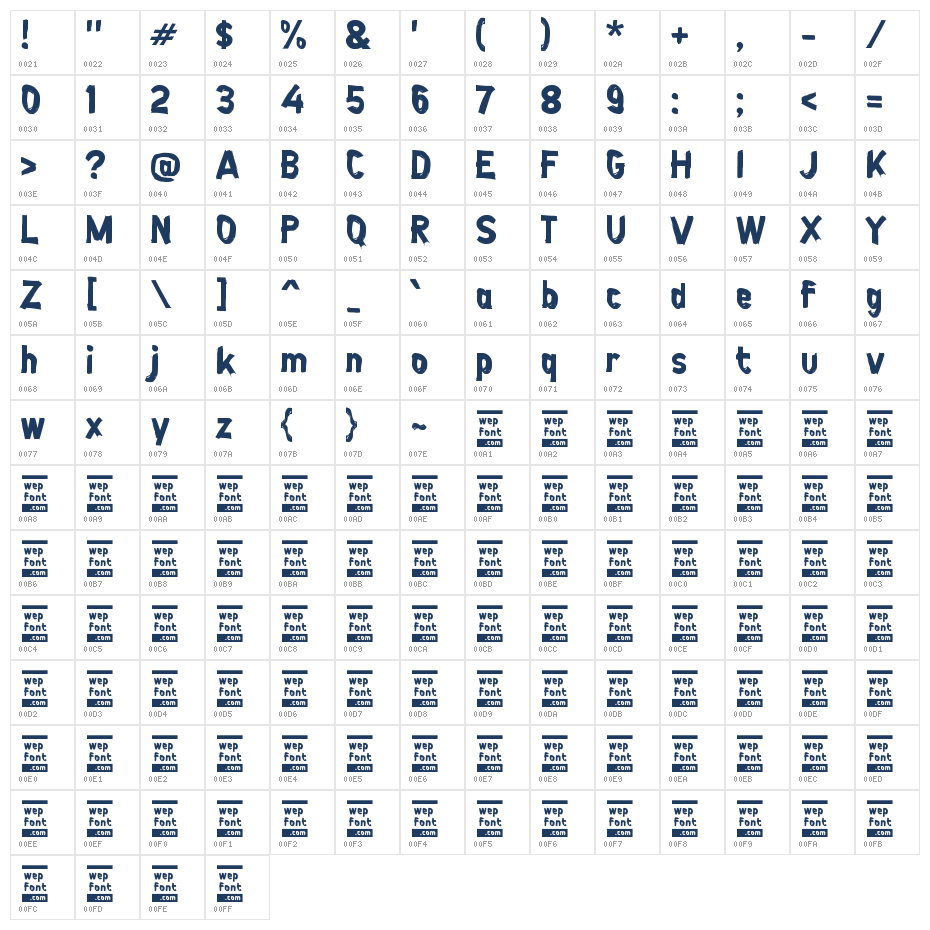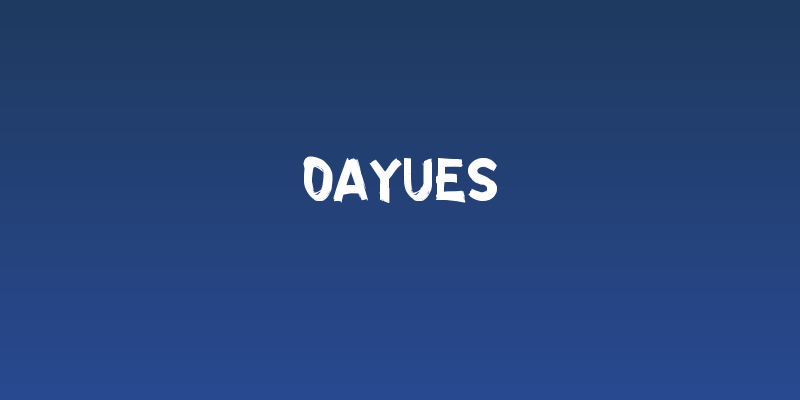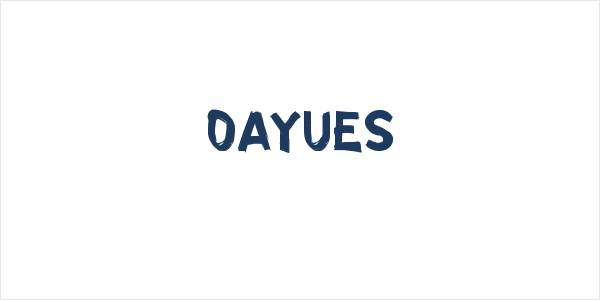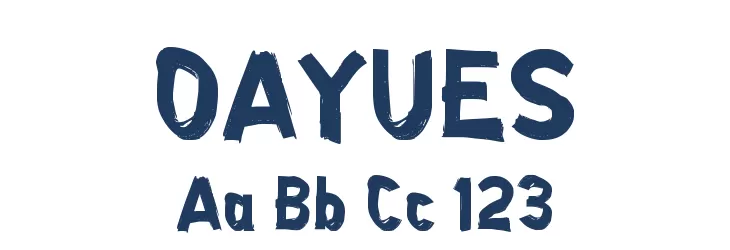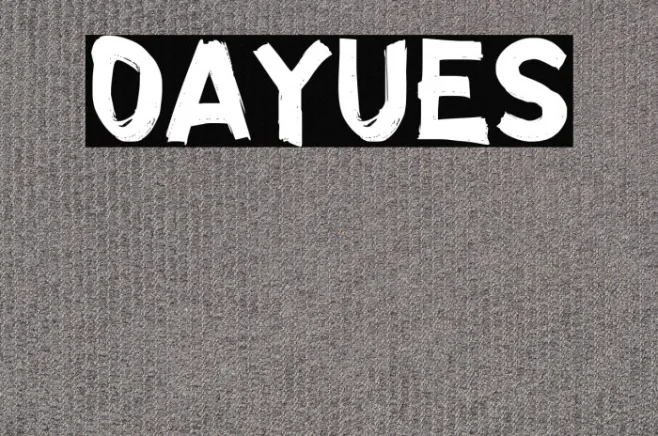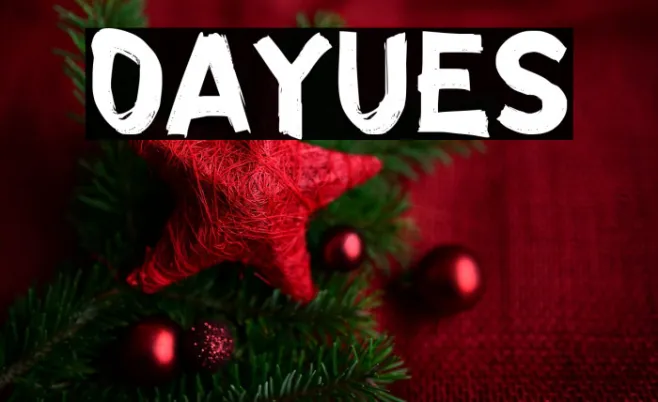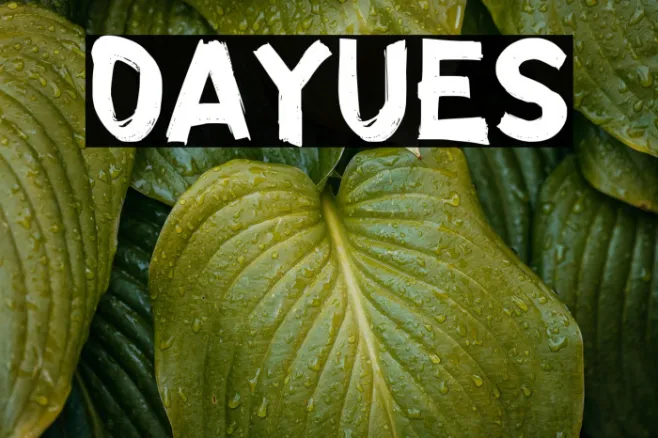
OAYUES Font
OAYUES Description
A bold, playful, and textured display font with irregular, hand-drawn characteristics.
| Overall Style | Playful, Hand-drawn, Casual |
| Use Case | Headlines, Posters, Logos, Creative branding |